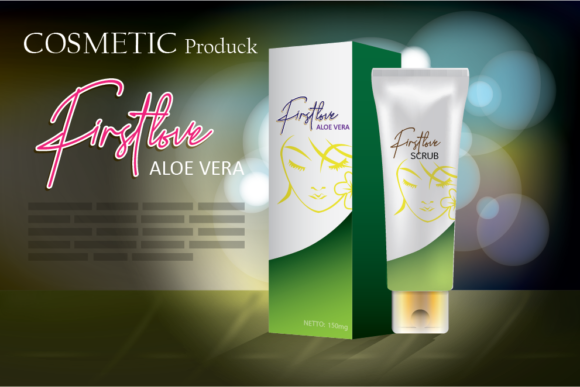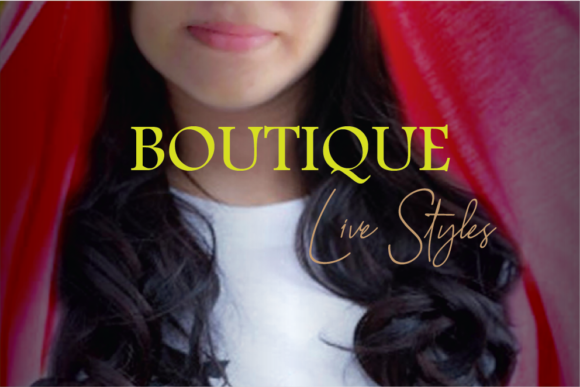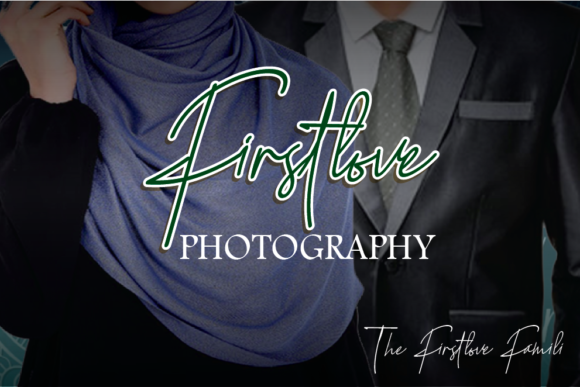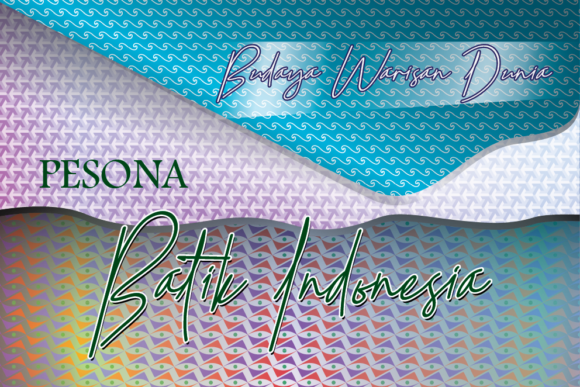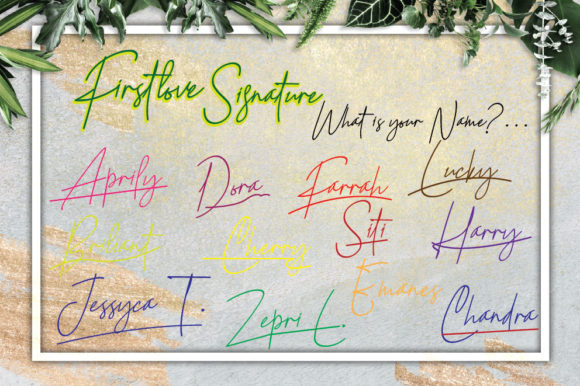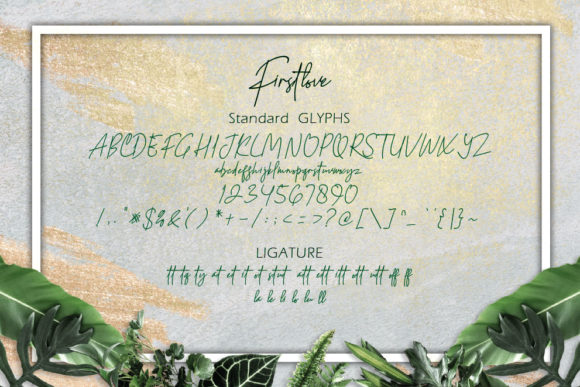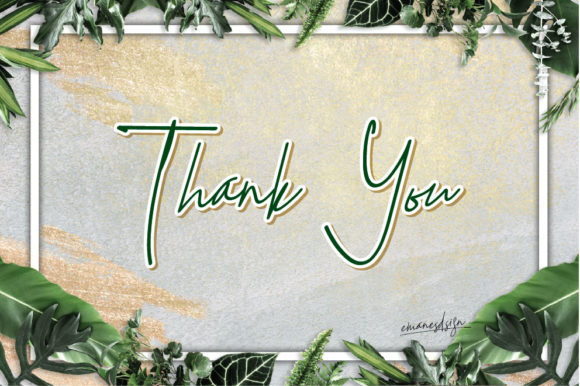
HomeScript FontsFirstlove Font Script Fonts Firstlove Font FacebookXPinterestWhatsApp Firstlove Font Poster 2 Firstlove Font Poster 3 Firstlove Font Poster 4 Firstlove Font Poster 5 Firstlove Font Poster 6 Firstlove Font Poster 7 Firstlove Font Poster 8 About Firstlove Font Firstlove is a lovely and wonderful script font that will add a personal touch to any design project. DOWNLOAD ON CREATIVE FABRICAThis font is sold and delivered by Creative Fabrica. Font Canyon may earn a commission if you buy through this link. People also explored Almond Cake Font Maisha Font Dalia Coollattee Ventta Watter Font Sublimation Font Long Liner Font Amekanu Font Valentine Together Font 328 0 TagsFirstlove Font Previous articleWhinter FontNext articleAestovid Font LEAVE A REPLY Cancel reply Comment: Please enter your comment! Name:* Please enter your name here Email:* You have entered an incorrect email address! Please enter your email address here Website: Save my name, email, and website in this browser for the next time I comment. Personal Use Free Just Love Personal Use Free Read more about this font Wadjet Personal Use Free Read more about this font Po Beef Personal Use Free Read more about this font Cosmos Personal Use Free Read more about this font BLOG Fonts That Capture the Spirit of New York City New York City is more than just a place—it’s an experience, a rhythm, a visual language... Best Fonts for T-Shirt Design – Top 2025 Picks Free vs Paid Fonts: Why Investing in Premium Fonts Is Worth It Where to Buy American Fonts Online in 2024